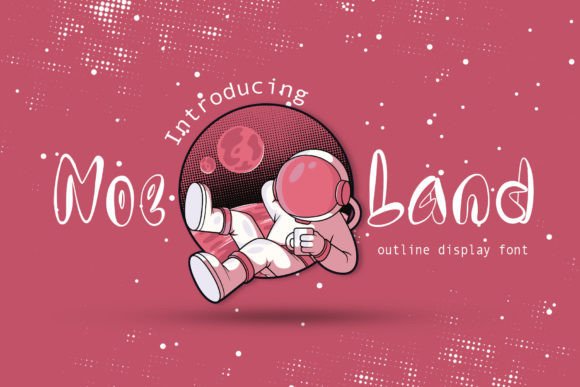
Encounter Noe Land, a font that resonates with freedom, boldness, and boundless creativity. Immerse yourself in a captivating typographical journey that breaks free from convention and propels your designs to new heights.
Designed with the spirit of independence, Noe Land empowers you to explore uncharted territories of expression. Its intricate letterforms and eccentric shapes unravel a narrative of liberation and individuality. Each stroke and curve invites you to unleash your imagination and push the boundaries of design.
Noe Land is the perfect companion for creative projects that demand a touch of daring and uniqueness. Whether you're crafting posters, logos, merchandise, or any project that seeks to stand out, this font delivers an unforgettable impact.
By embracing the Noe Land font, you unlock a world of possibilities. Tell captivating stories, express ideas with originality, and leave a lasting impression on your audience. Break free from the mundane and embrace the freedom to create designs that resonate with your unique vision.
Noe Land is more than just a font; it's a celebration of creativity and a testament to the boundless imagination within you. Unleash the power of freedom in your designs and let Noe Land guide you on an extraordinary typographical adventure.